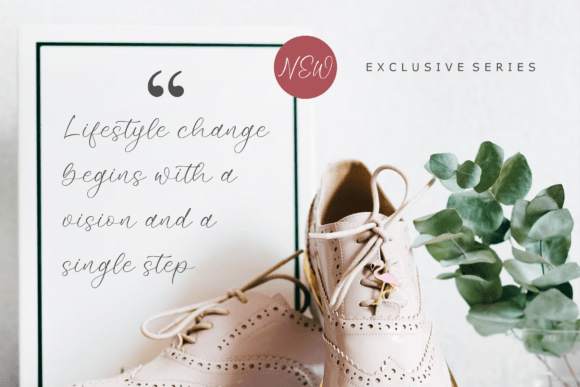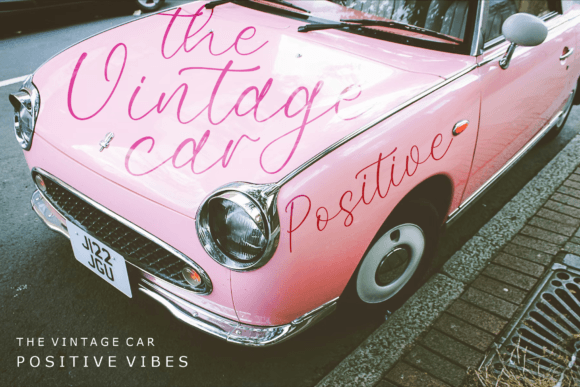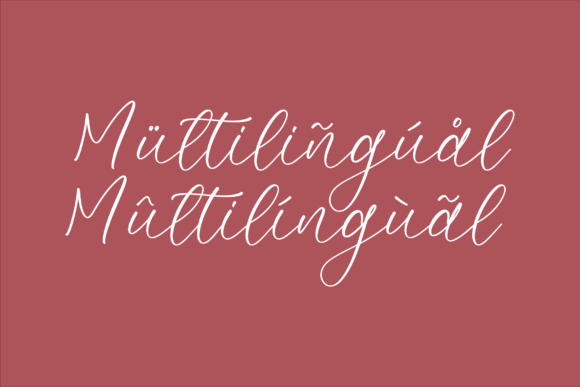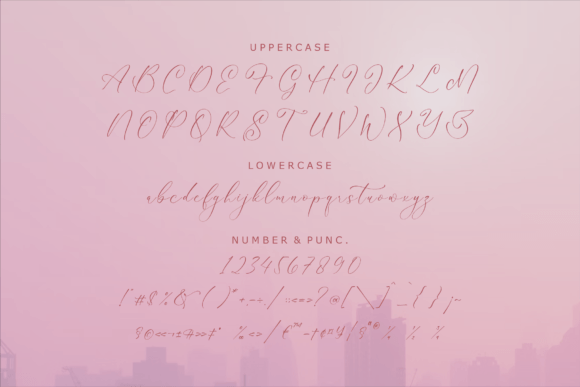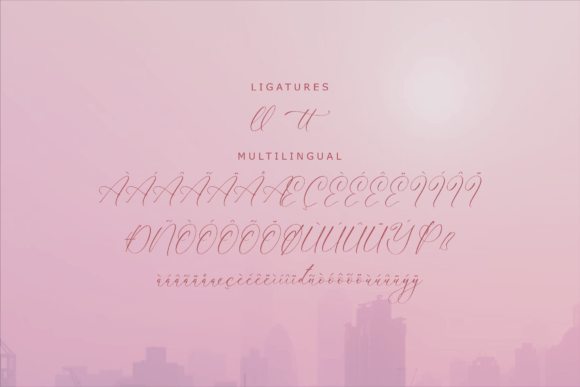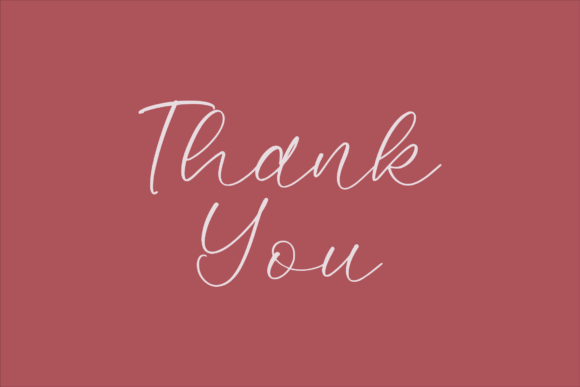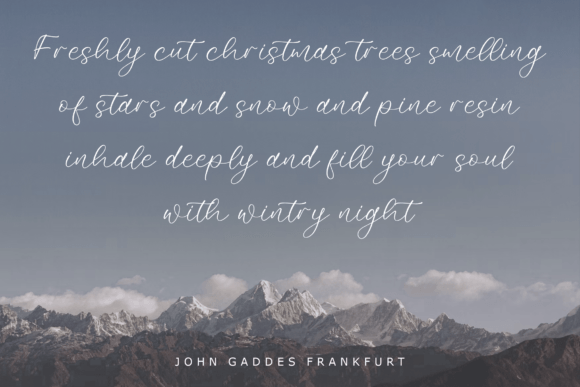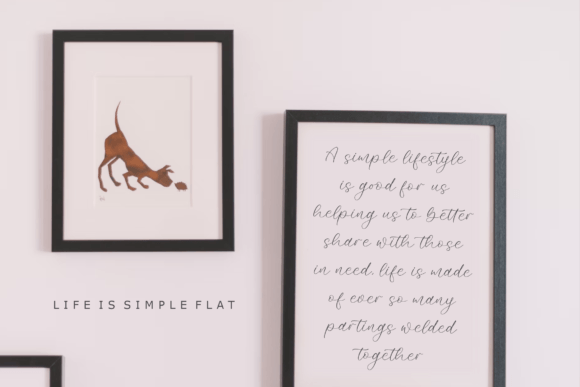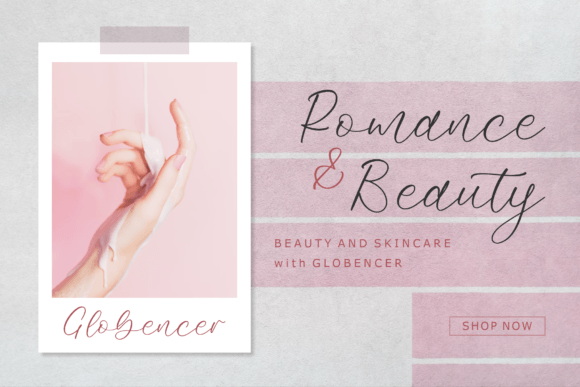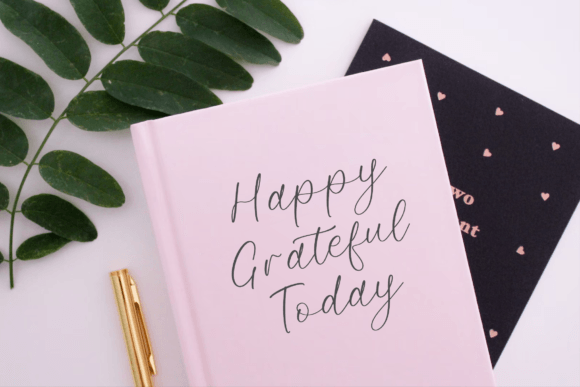
Rowmant Alonshie Font
About Rowmant Alonshie Font
Rowmant Alonshie font is an elegant script typeface crafted to bring sophistication and charm to a wide variety of creative projects. This beautiful handwritten font suits many uses, from branding and logos to homeware designs and personalized stationery. Its graceful curves and flowing style make every design look refined and professional.
Versatile for Various Creative Projects
This font fits perfectly for logos and branding, giving businesses a classy and memorable look. Use Rowmant Alonshie on product packaging or mugs to add a personal touch that customers will appreciate. It also shines on quotes, posters, and shopping bags, turning ordinary items into stylish keepsakes.
Rowmant Alonshie is ideal for special events. Whether you’re designing wedding invitations, name cards, or greeting cards, this font adds elegance and warmth. Its smooth flow enhances the message and makes the text feel heartfelt and unique.
Enhances Photography and Watermarks
Photographers will love how Rowmant Alonshie adds a signature look to their work. Using this font for watermarks creates a polished and artistic impression while protecting images. Its stylish strokes balance visibility with subtlety.
Beautiful Script Taste for Special Projects
With Rowmant Alonshie, your designs gain a beautiful script taste that sets them apart. Its timeless elegance pairs well with modern and classic aesthetics alike. This font is perfect for any project that demands a sophisticated handwritten flair.
Easy to Use Across Mediums
Thanks to its clean and readable style, Rowmant Alonshie works well in both print and digital media. Whether you’re creating book covers, labels, or promotional materials, this font ensures your work looks stunning and professional.